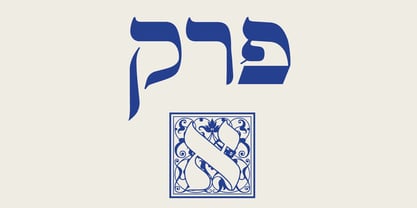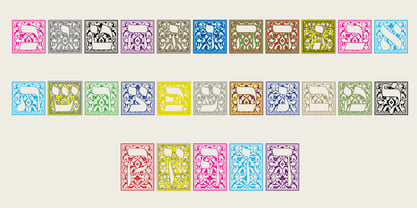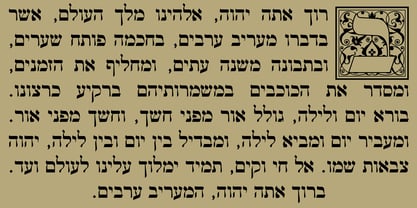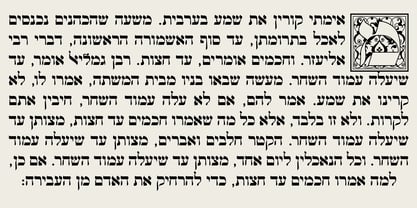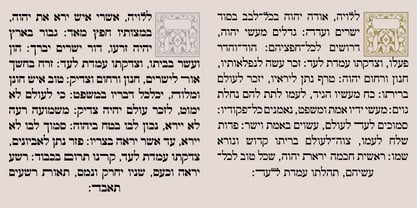
Hebrew Vilna Caps
by Samtype
The Hebrew Vilna Caps Font Family was designed by Sami Artur Mandelbaum and published by Samtype. Hebrew Vilna Caps contains 1 styles. More about this family
This font is designed for use without diacritic accents, making it ideal for Drop Caps at the beginning of paragraphs or for highlighting special letters within a text. It excels in enhancing the visual appeal of book covers and chapter titles. This version is fully compatible with Hebrew Vilna Black Std and Hebrew Vilna Black Tanach, ensuring optimal results when paired with either of these styles. Perfect for adding a touch of elegance and sophistication to your projects, this font is a versatile choice for various design applications.
Designers: Sami Artur Mandelbaum
Foundry: Samtype